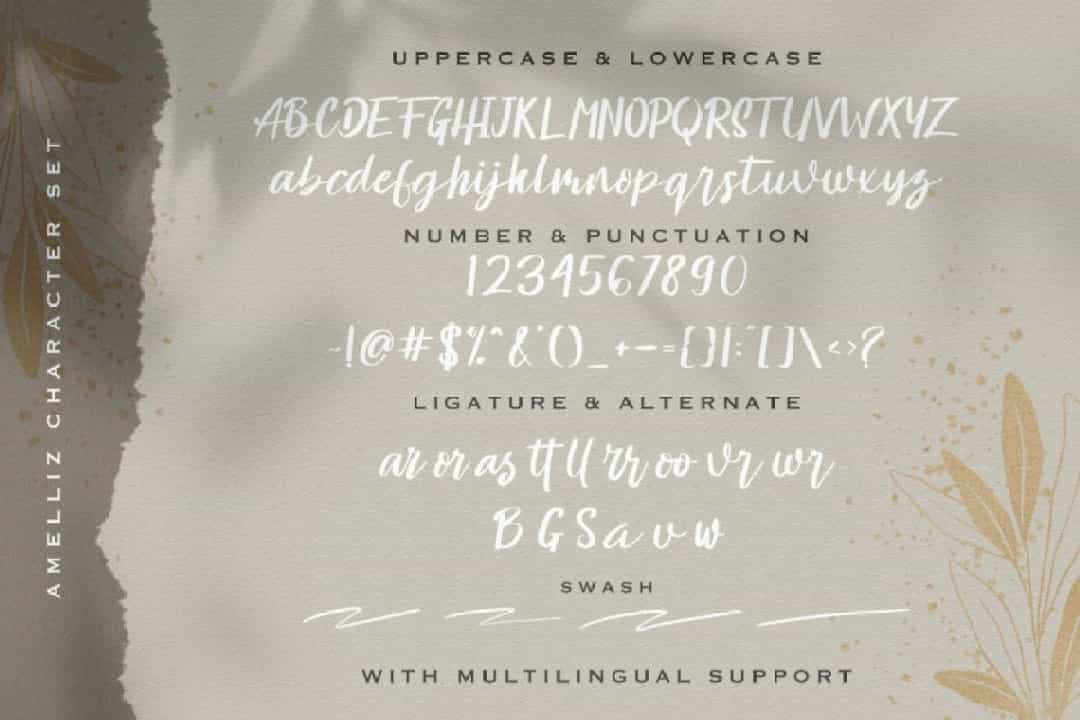
Discover Amelliz Font, part of the Brush Script collection—a versatile and unique font perfect for adding a personal touch to your projects. Download it for free and enjoy crafting designs with style, from invitations to social media posts. This font is available exclusively for personal use, giving you the freedom to create without limits. Unlock your creativity with Amelliz Font today!
Amelliz can be described as an exhilarating hand-drawn typeface with brush style. Its exquisite script will transform your words into stunning stylish modern words! Perfect for logos, branding projects, book cover designs, t-shirt designs as well as advertisements on social media; packages for products watermark, invitation stationary projects and all other projects!